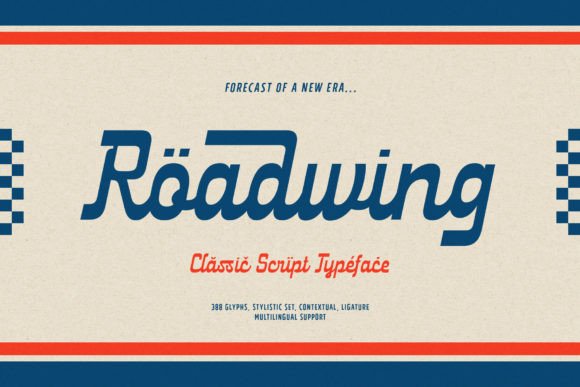
Introducing Roadwing: A Timeless Font for Vintage Automotive Enthusiasts
Are you looking for a font that captures the essence of bygone eras and vintage automotive culture? Look no further than Roadwing, a retro and classic script font designed to evoke nostalgia and sophistication. In this article, we’ll explore the features and benefits of Roadwing, and how it can elevate your design projects related to classic retro cars, motorcycles, boats, and vintage billboards.
The Inspiration Behind Roadwing
Roadwing is inspired by the golden age of automobiles, when cars were a symbol of freedom and adventure. The font’s design is rooted in the classic script styles of the past, with flowing lines and elegant curves that evoke a sense of nostalgia and timelessness. Whether you’re designing a logo, signage, or promotional material, Roadwing provides the perfect typography to transport your audience back in time.
Key Features of Roadwing
- Retro and Classic Script Style: Roadwing boasts a distinctive retro aesthetic that is reminiscent of vintage automotive culture.
- Timeless Elegance: The font’s flowing script exudes sophistication and charm, making it perfect for projects that require a touch of elegance.
- Contextual Alternates: Roadwing features contextual alternates, which allow you to customize the font to suit your unique design needs.
- Stylistic Alternates: The font also includes stylistic alternates, providing you with a range of options to tailor your typography.
- Ligatures: Roadwing supports ligatures, which enable you to create beautiful, flowing text that is easy to read.
Perfect for Vintage Automotive Projects
Roadwing is specifically designed for projects related to classic retro cars, motorcycles, boats, and vintage billboards. The font’s retro aesthetic and timeless elegance make it perfect for:
- Classic Car Logos: Create a logo that captures the essence of vintage automotive culture with Roadwing.
- Vintage Motorcycle Signage: Use Roadwing to design eye-catching signage that evokes the spirit of the open road.
- Boat and Marine Design: Add a touch of nostalgia to your boat and marine design projects with Roadwing’s classic script style.
- Vintage Billboard Advertising: Create retro-style billboards that transport your audience back in time with Roadwing.
Benefits of Using Roadwing
- Unique and Distinctive: Roadwing’s retro aesthetic and classic script style set it apart from other fonts, making your design projects stand out.
- Customization Options: With contextual alternates, stylistic alternates, and ligatures, Roadwing provides the flexibility to tailor your typography to suit your unique vision.
- Attention to Detail: The font’s attention to detail and authentic design bring a sense of heritage and authenticity to your projects.
- Elegant and Sophisticated: Roadwing’s flowing script exudes elegance and sophistication, making it perfect for projects that require a touch of refinement.
Tips for Using Roadwing Effectively
- Pair with Bold Fonts: Pair Roadwing with bold fonts to create a striking contrast that adds visual interest to your design.
- Experiment with Colors: Try Roadwing with different colors to create a unique and eye-catching design that pops.
- Use in Combination with Images: Use Roadwing in combination with images of vintage cars, motorcycles, or boats to create a cohesive and nostalgic design.
- Play with Ligatures: Experiment with ligatures to create beautiful, flowing text that adds to the overall aesthetic of your design.
Roadwing is a unique and distinctive font that captures the essence of vintage automotive culture and bygone eras. With its retro aesthetic, classic script style, and customization options, Roadwing is perfect for projects related to classic retro cars, motorcycles, boats, and vintage billboards. Whether you’re designing a logo, signage, or promotional material, Roadwing provides the flexibility and elegance to bring your design vision to life.